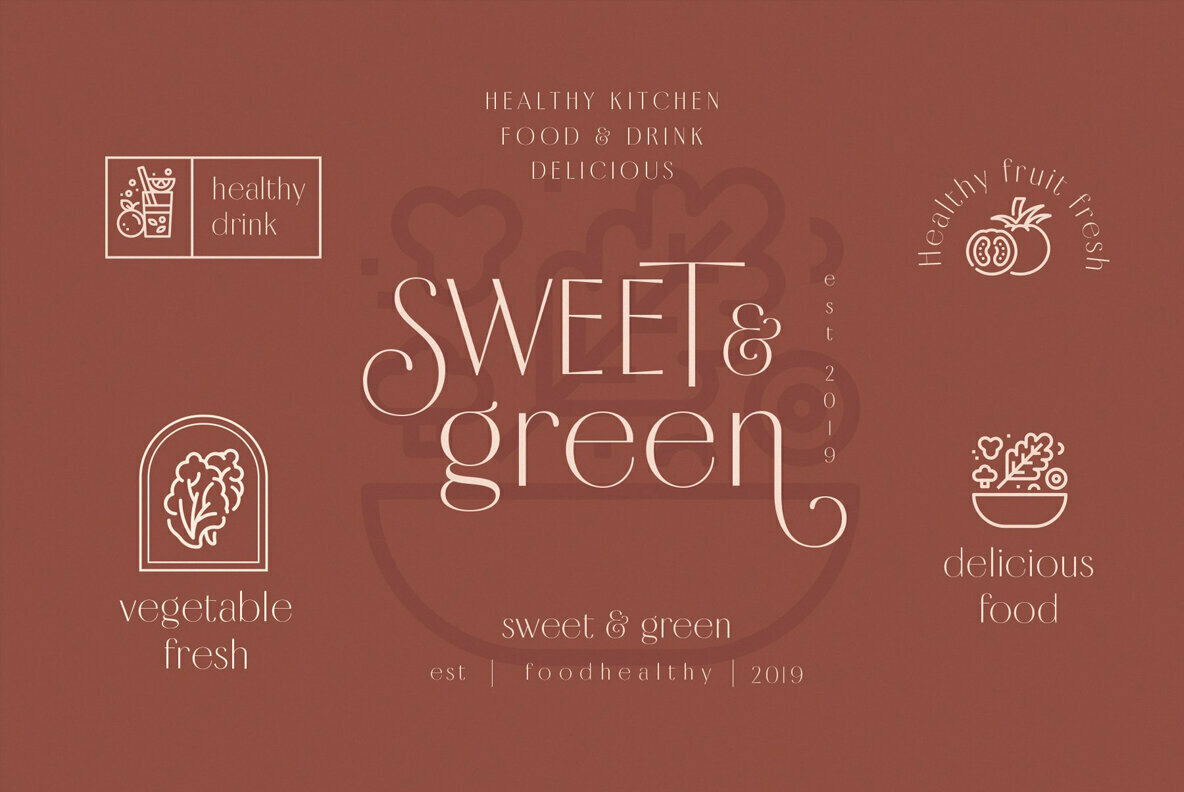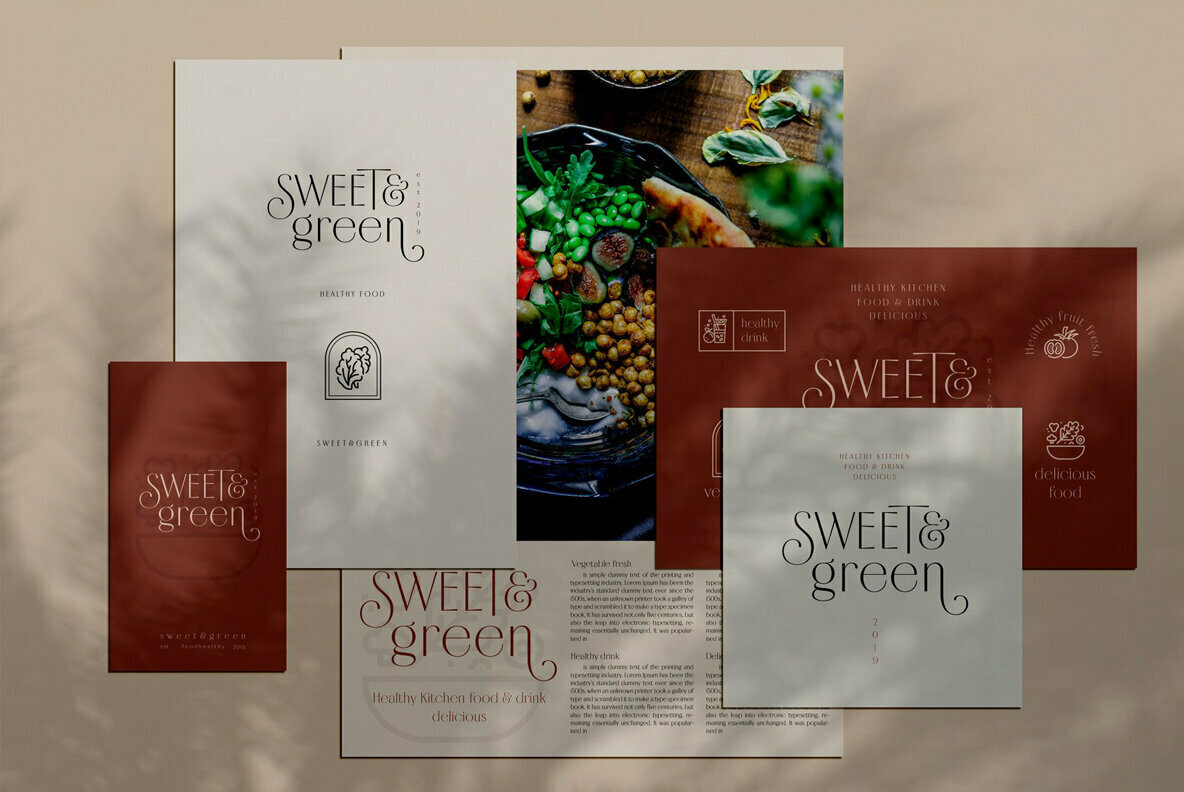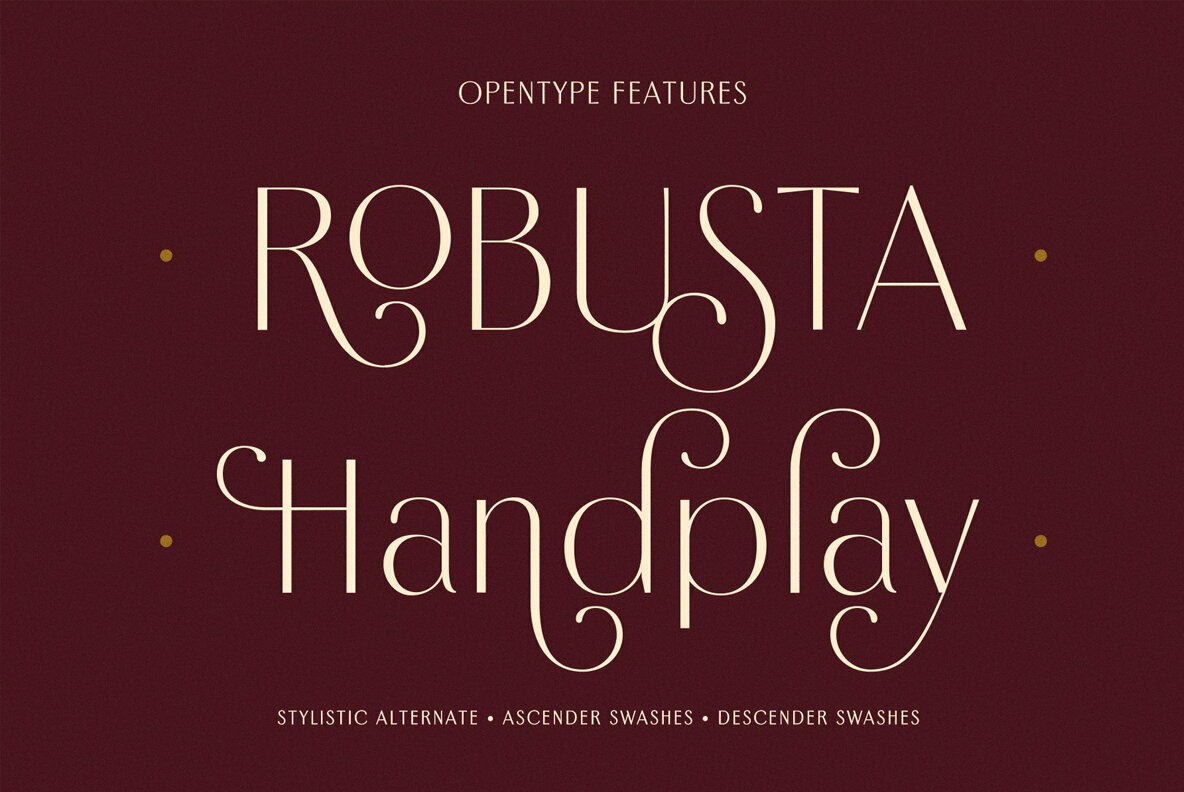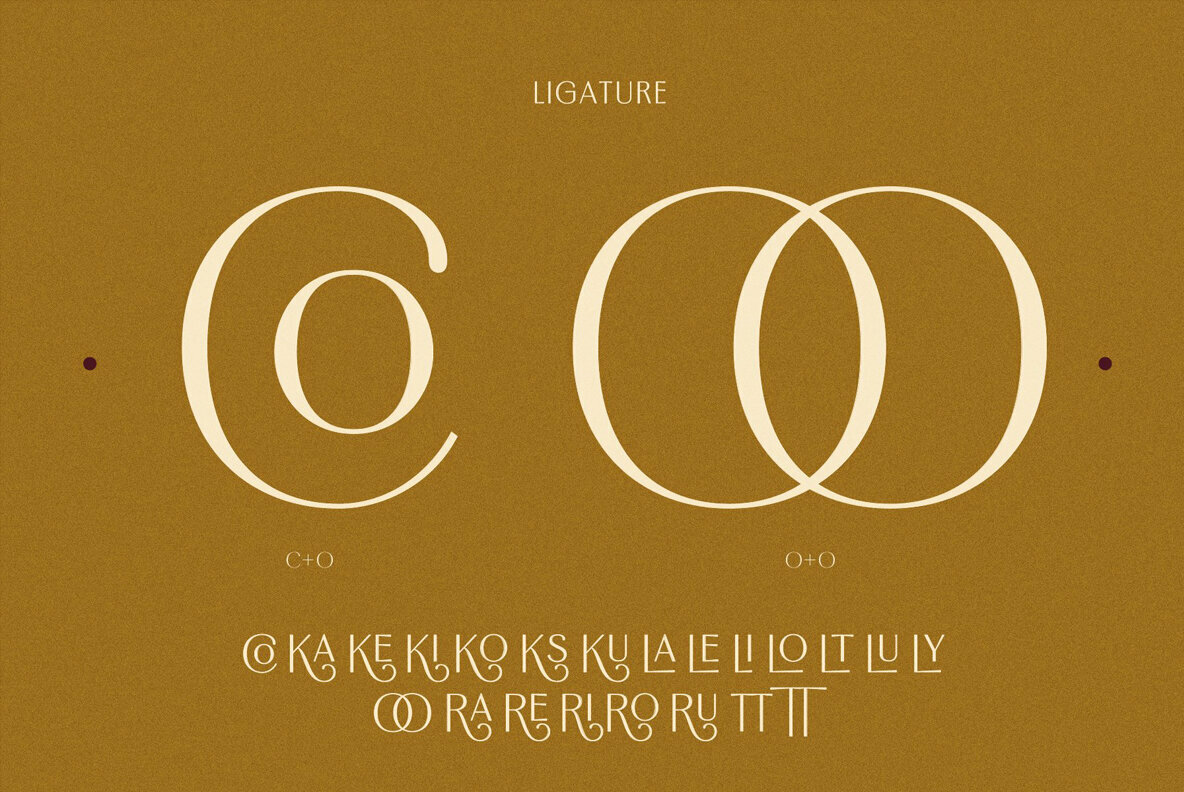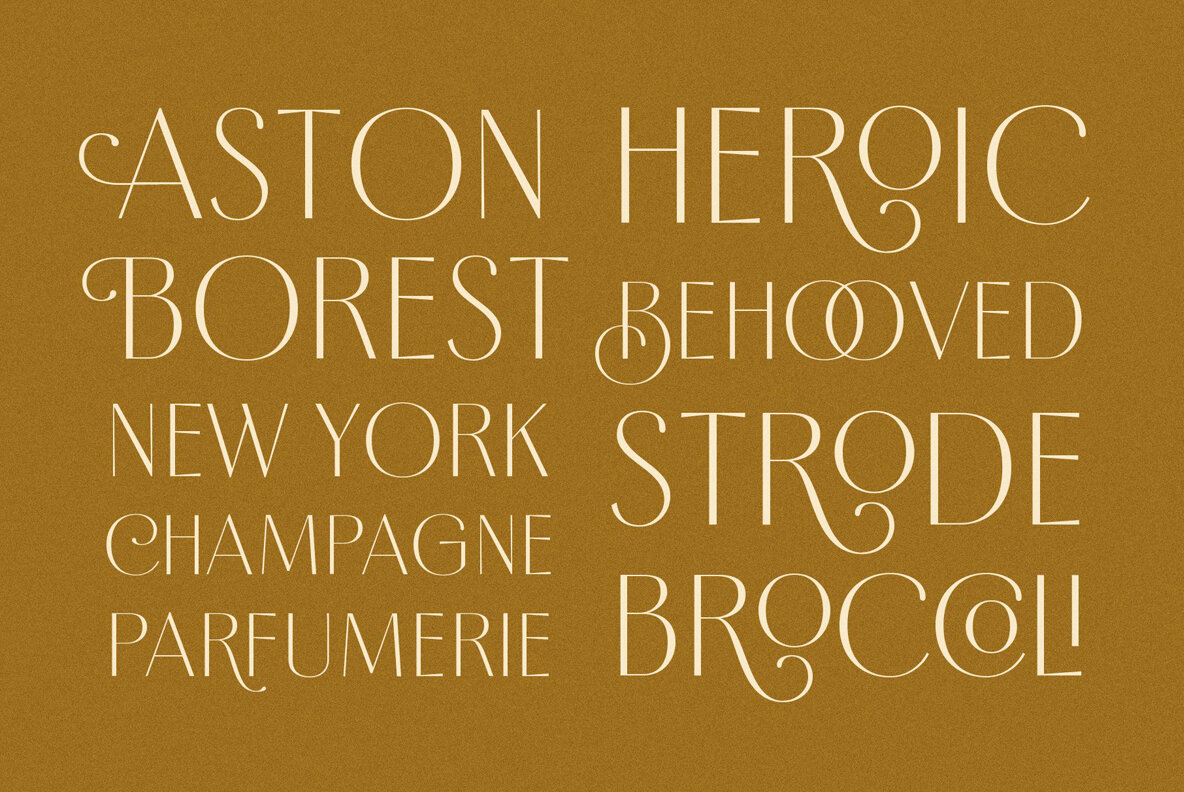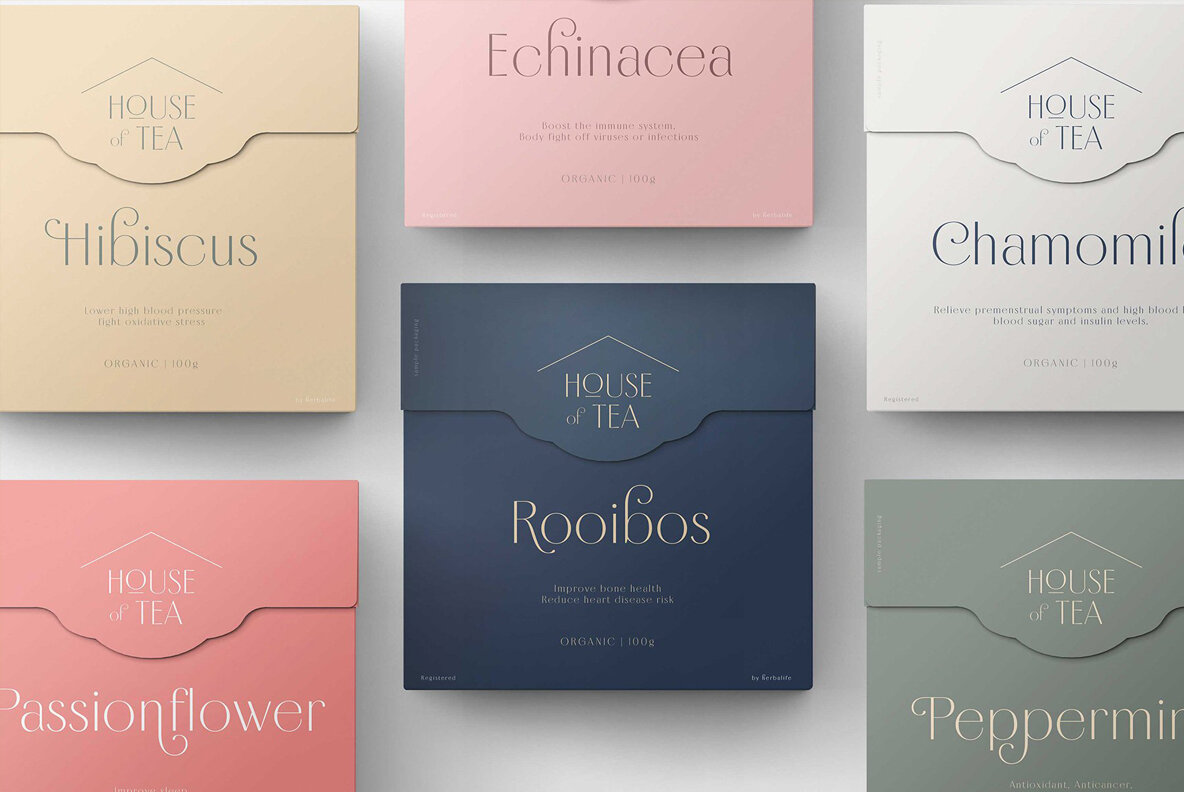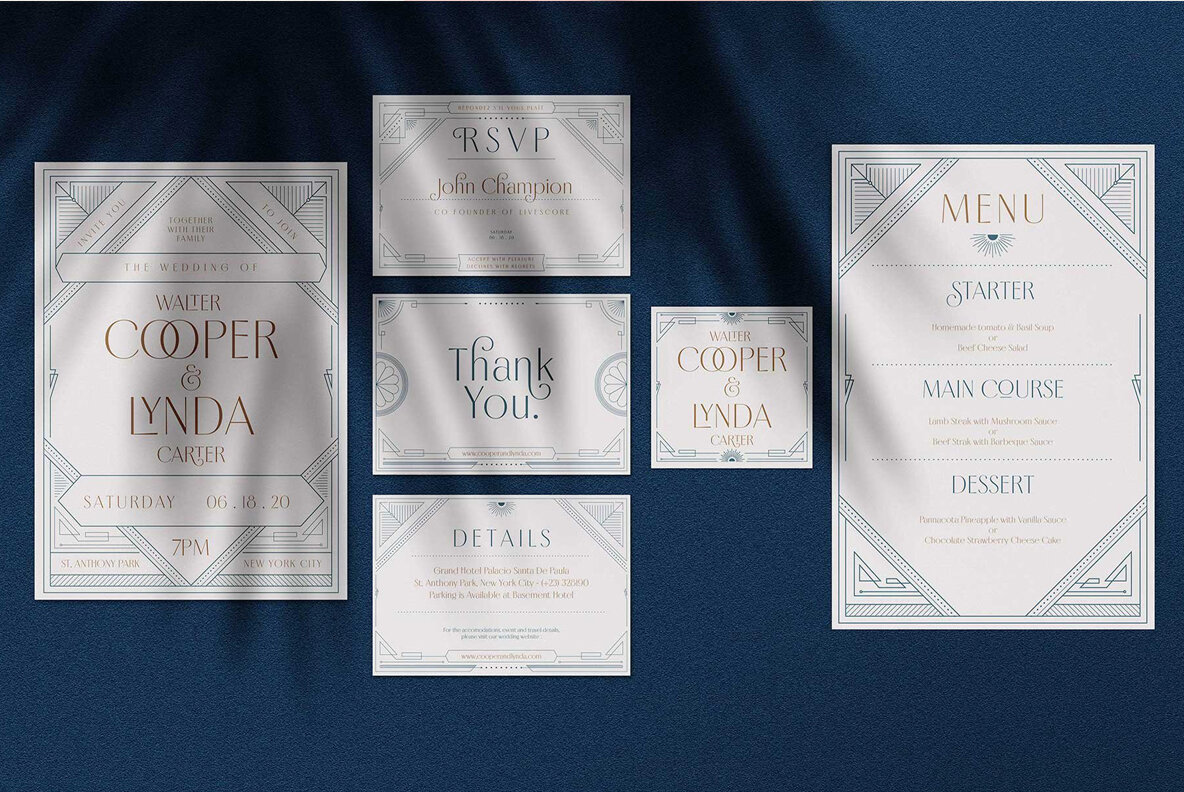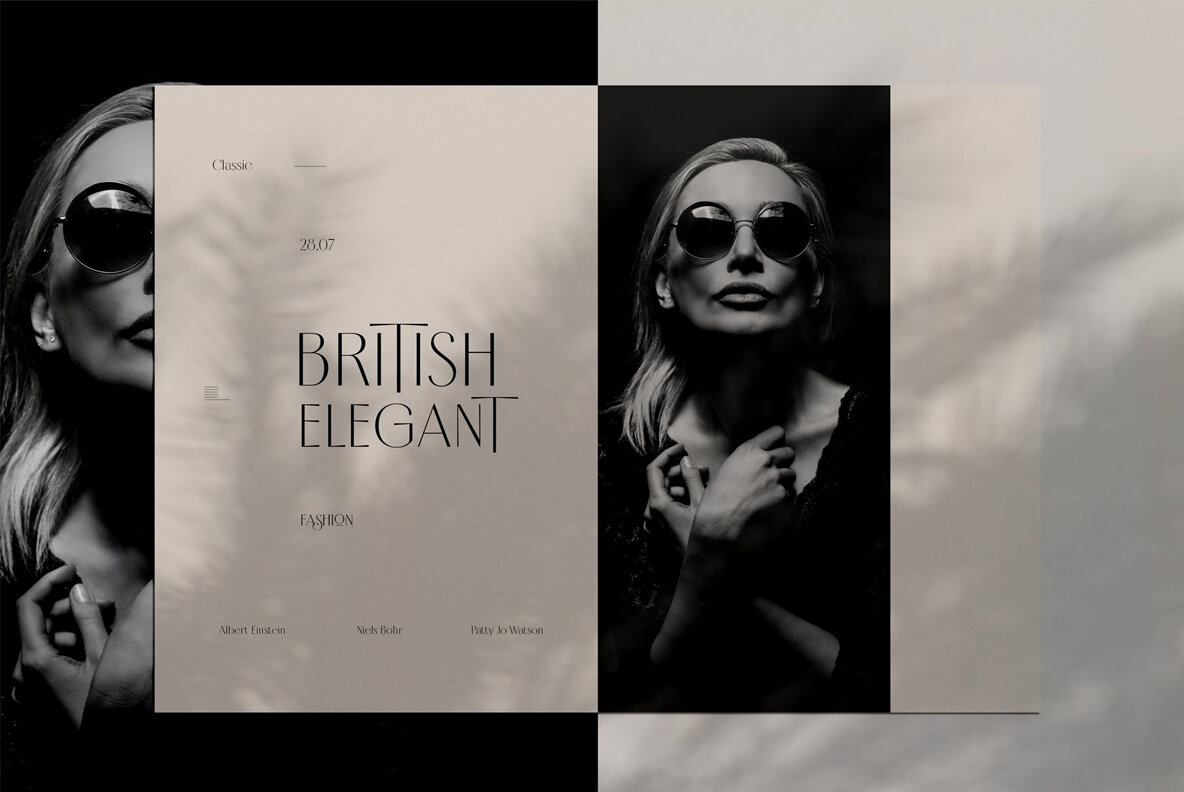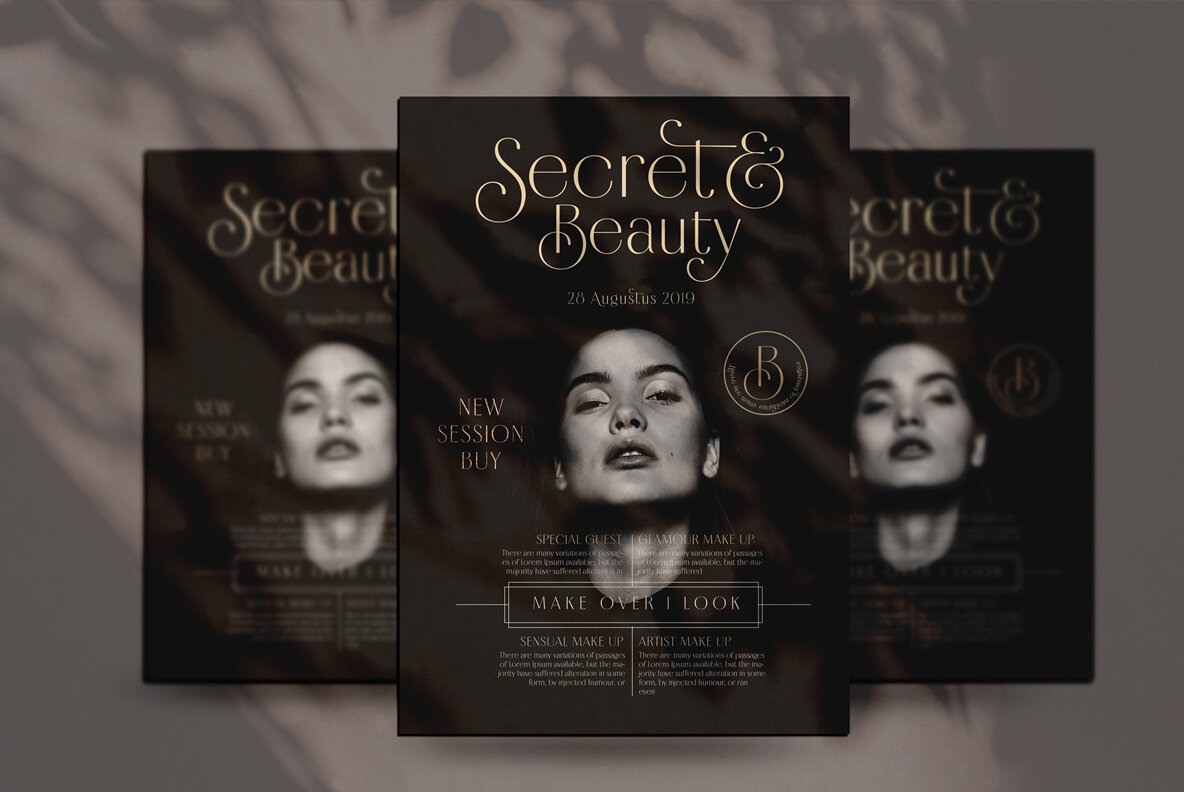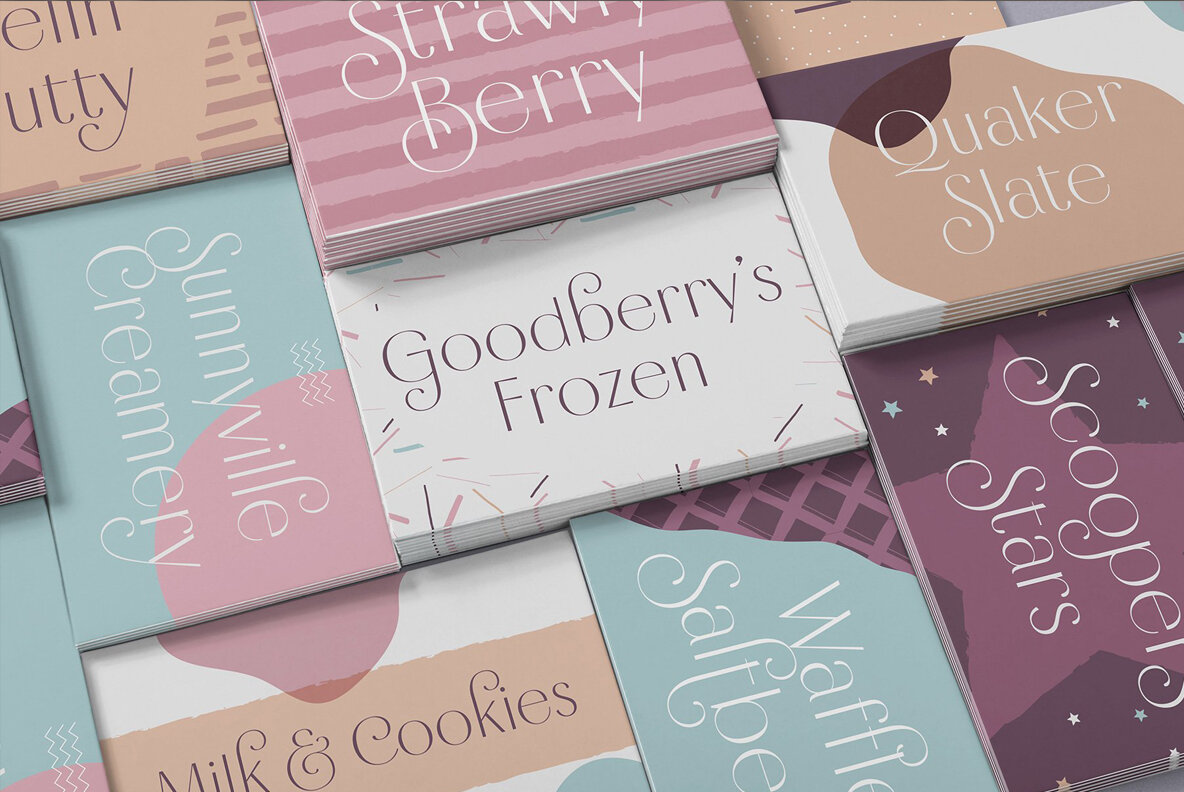
Borest Font
Borest Regular
Borest stands as a versatile typeface drawing inspiration from the timeless elegance of vintage and art deco eras, seamlessly blending into modern sensibilities. This sophisticated roman sans serif font captures the essence of luxury and adaptability, making it ideal for various projects such as branding, headlines, logotypes, posters, magazines, packaging, and art deco-style wedding invitations. The wide range of references imbues Borest with a refined yet universal appeal. Borest is equipped with OpenType features that enhance its functionality. It includes stylistic alternates with ascender and descender swashes, as well as ligatures, allowing for creative configurations without sacrificing the font's inherent characteristics.Borest: A Versatile and Luxurious Roman Sans Serif